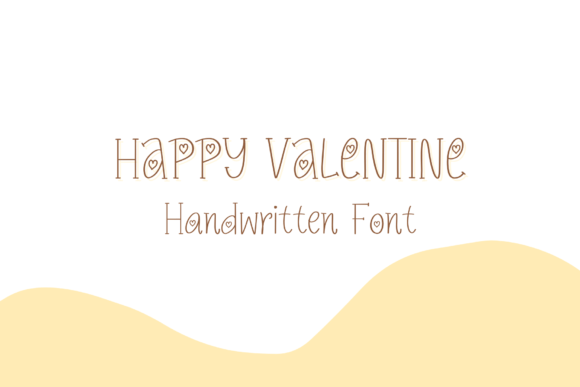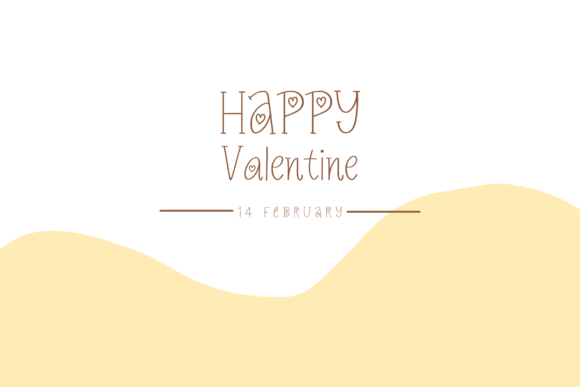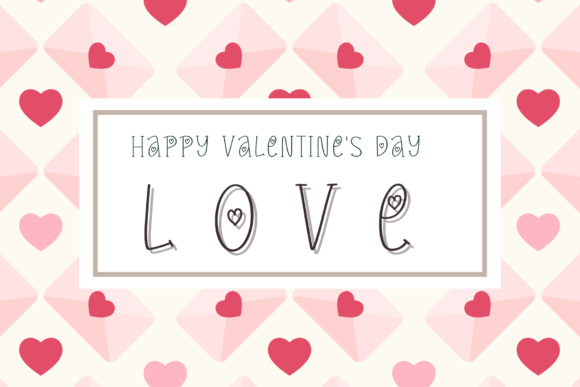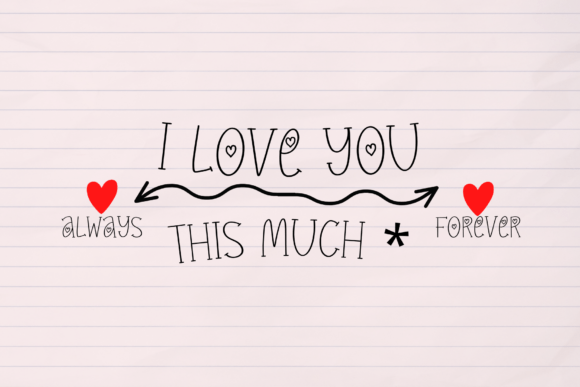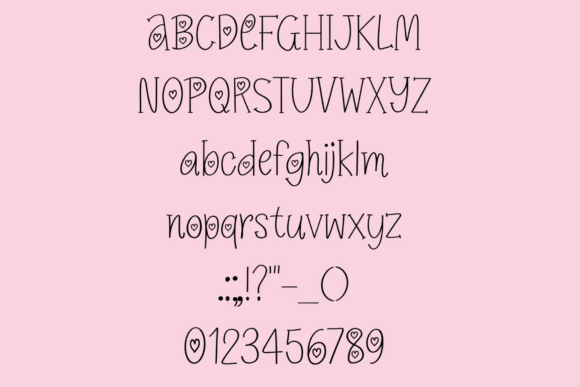
The Sweetest Font for Your Valentine’s Projects
Who doesn’t love the feeling of creating something special for a loved one? Whether it’s a handmade card, a heartfelt letter, or a beautiful wedding invitation, the right font can make all the difference. As I sat at my desk, brainstorming ideas for a Valentine’s Day project, I stumbled upon the perfect solution – the Happy Valentine Font.
This adorable handwritten display font is a must-have for any designer looking to add a touch of sweetness and fun to their projects. With its cute and playful style, it’s perfect for crafts, digital design, presentations, and even writing wedding invitations or cards. The Happy Valentine Font is ideal for school use, making it a valuable tool for both teachers and students.
With its versatility and charm, the Happy Valentine Font is sure to bring joy to your next design project. Whether you’re a seasoned designer or just starting out, this font is a great addition to your toolkit.
Key Features of Happy Valentine Font
- Font Styles: Happy Valentine Font comes in a variety of styles, including regular, bold, italic, and bold italic.
- Font Size: This font is designed to be used at font sizes ranging from 12 to 72 points, making it suitable for a wide range of applications.
- Resolution: Happy Valentine Font is designed to be resolution-independent, ensuring that it looks great at various screen resolutions and print sizes.
- Unique Characteristics: This font features a unique, hand-drawn design with intricate details and ornate flourishes, making it perfect for adding a touch of romance and whimsy to your designs.
- Character Count: Happy Valentine Font contains a wide range of characters, including uppercase and lowercase letters, numbers, punctuation marks, and special characters.
Happy Valentine Font Review
I recently had the chance to work with the Happy Valentine Font, and I must say it’s a delightful addition to any design project.
- The font’s playful and whimsical feel is perfect for Valentine’s Day-themed projects or any design that requires a touch of romance.
- The font is highly customizable, allowing designers to adjust the size, color, and style to fit their specific needs.
- The font is also highly legible, making it easy to read even in smaller font sizes.
- The font may not be suitable for formal or professional projects, as its playful feel may come across as too casual.
- The font may not be compatible with all font rendering systems, which could lead to inconsistent results across different devices or browsers.
- The font’s character set may not include all the characters you need, which could limit its usability in certain projects.
The Happy Valentine Font is a fun and versatile font that’s perfect for designers who want to add a touch of romance and whimsy to their projects. While it may have some limitations, its customizable design and playful feel make it a great choice for designers who want to create unique and eye-catching designs.
For optimal results, use the Happy Valentine Font in designs that require a playful and romantic touch, such as:
- Valentine’s Day cards and invitations.
- Wedding stationery and decor.
- Anniversary and birthday designs.
Remember to adjust the font size and color to ensure readability and visual balance in your design.